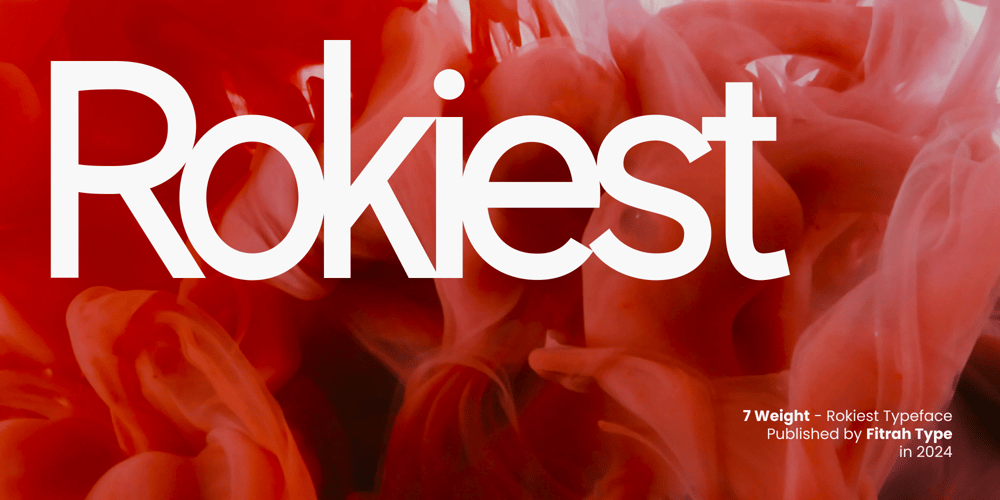
Rokiest Font Family was designed by Moch Fitrah Hidayat and published by Fitrah Type. Rokiest contains 7 styles and family package options. Rokiest is a sans serif font that comes with 7 styles. Rokiest created in a simplicity, a minimalist and also looks elegant. The entire typography has been designed to work on large sizes.This font ideal for designing merchandise, social media, marketing posts, product packaging & branding projects. Rokiest supports uppercase, lowercase, numerals and punctuation.We highly recommend using a program that supports OpenType features and Glyphs panels such as Adobe Illustrator, Adobe Photoshop CC, Adobe InDesign, or CorelDraw, so you can see and access all Glyph variations.